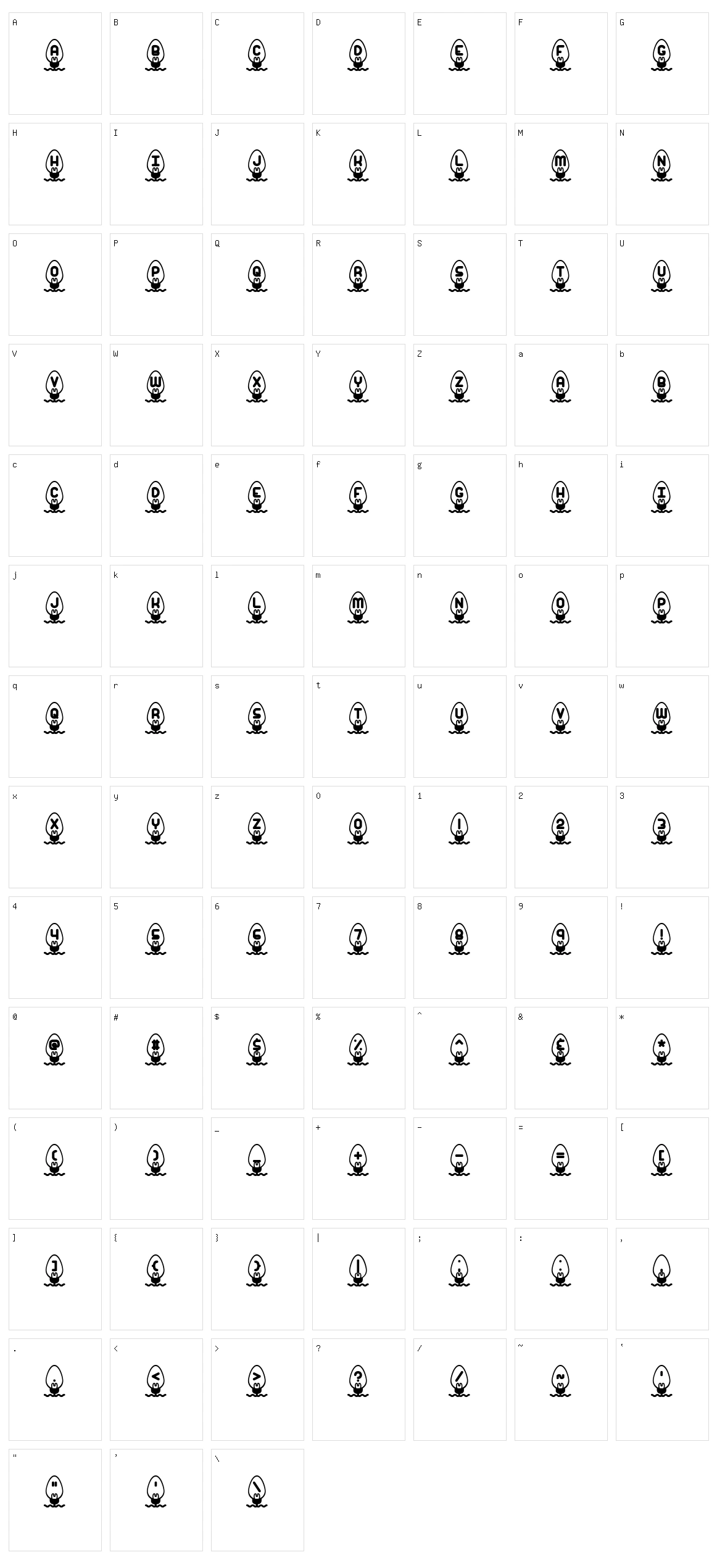
Xmas Lights Created by Brian Kent
ALT+0200 = È = Blank Bulb
ALT+0201 = É = Blank Bulb Dark
ALT+0202 = Ê = Blink Lines
ALT+0203 = Ë = Wire Space 1 ~ (small)
ALT+0204 = Ì = Wire Space 2 ~~ (medium)
ALT+0205 = Í = Wire Space 3 ~~~ (large)
ALT+0206 = Î = End Plug RIGHT
ALT+0207 = Ï = End Plug LEFT
-> The Blank Bulbs are bulbs with no characters in them.
-> For the Blink Lines, create them first, then type in the character
you want to use. Like this:
ÊblÊinÊk
This makes the word BLINK with the Blink Lines over B, I and K.
\ | / <- Blink Lines
/¯\
| X | <- the letter X (in Blub) :)
`-¥-´
~~^~~
-> The Wire Space 1,2 and 3 create connecting wires between words.
-> The End Plugs are used to place Plugs to the Right and Left of your
text (at the end of the wires). Like this:
Ïabc123Î